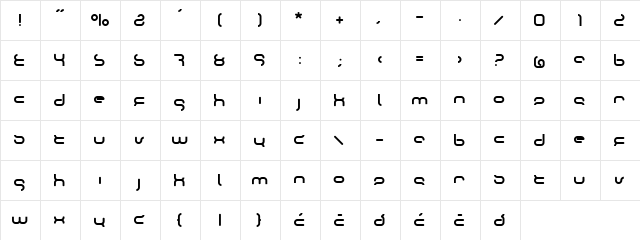
oktober Regular Font Preview
oktober Regular
oktober Regular Font Details
Design Context for oktober Typeface
oktober is a composed and adaptable typeface that performs quietly and consistently across a wide range of design contexts.